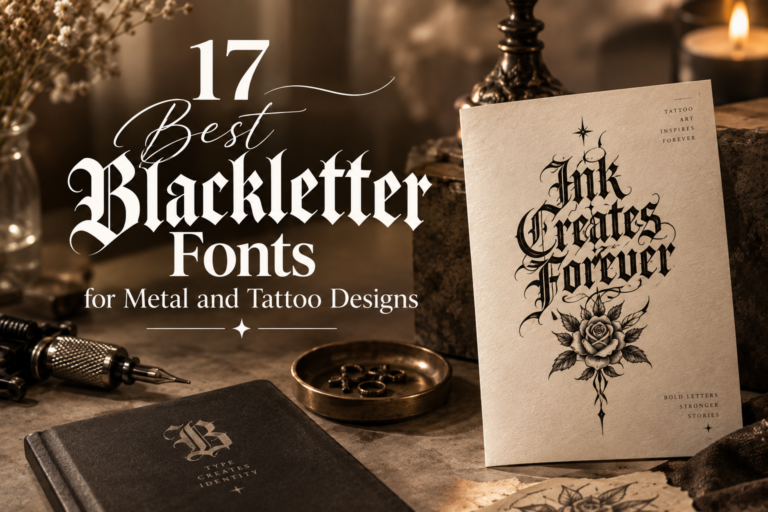
17 Best Blackletter Fonts for Metal and Tattoo Designs
Blackletter Fonts & Gothic Typography Discover bold blackletter and gothic fonts for metal artwork, tattoo designs, band logos, album covers, merchandise, posters, streetwear graphics, and dark alternative branding. Table of Contents How to Choose a Blackletter Font 17 Best Blackletter Fonts How to Use Blackletter Fonts in Metal & Tattoo Design Best Blackletter Fonts by…